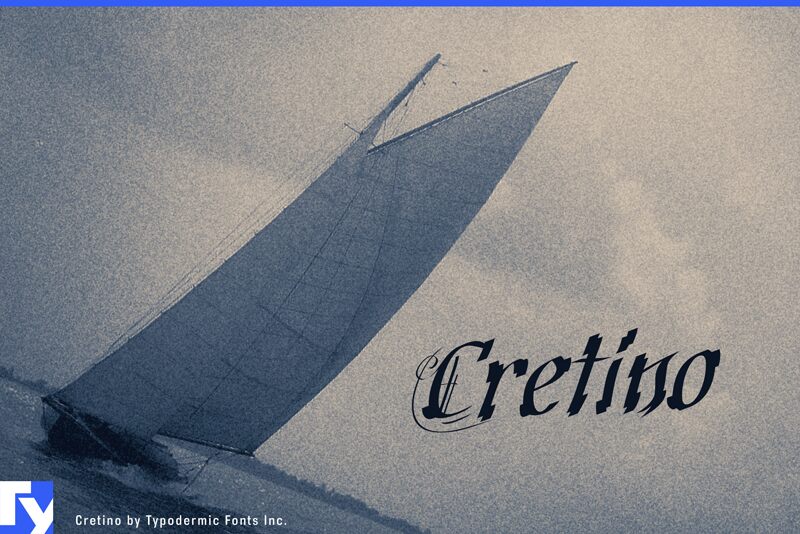
Cretino by Ray Larabie of Typodermic Fonts Inc. is a free medieval blackletter font with extravagant calligraphic ornament. Broad, sharply cut letter bodies are threaded with hairline loops and long sweeping flourishes, creating a dense, theatrical silhouette.
Its looping strokes can mingle with engraved borders, heraldic creatures, or ornamental patterns on fantasy book covers and event posters. For album artwork and merchandise, the lettering can become part of the illustration itself, almost like decorative metalwork woven through the image.
I created this script in 2000 while testing a new drawing tablet. The new version of Cretino has revised kerning, tighter vertical metrics, improved accents, and broader language coverage. Some swashes have been cleaned up and refined.